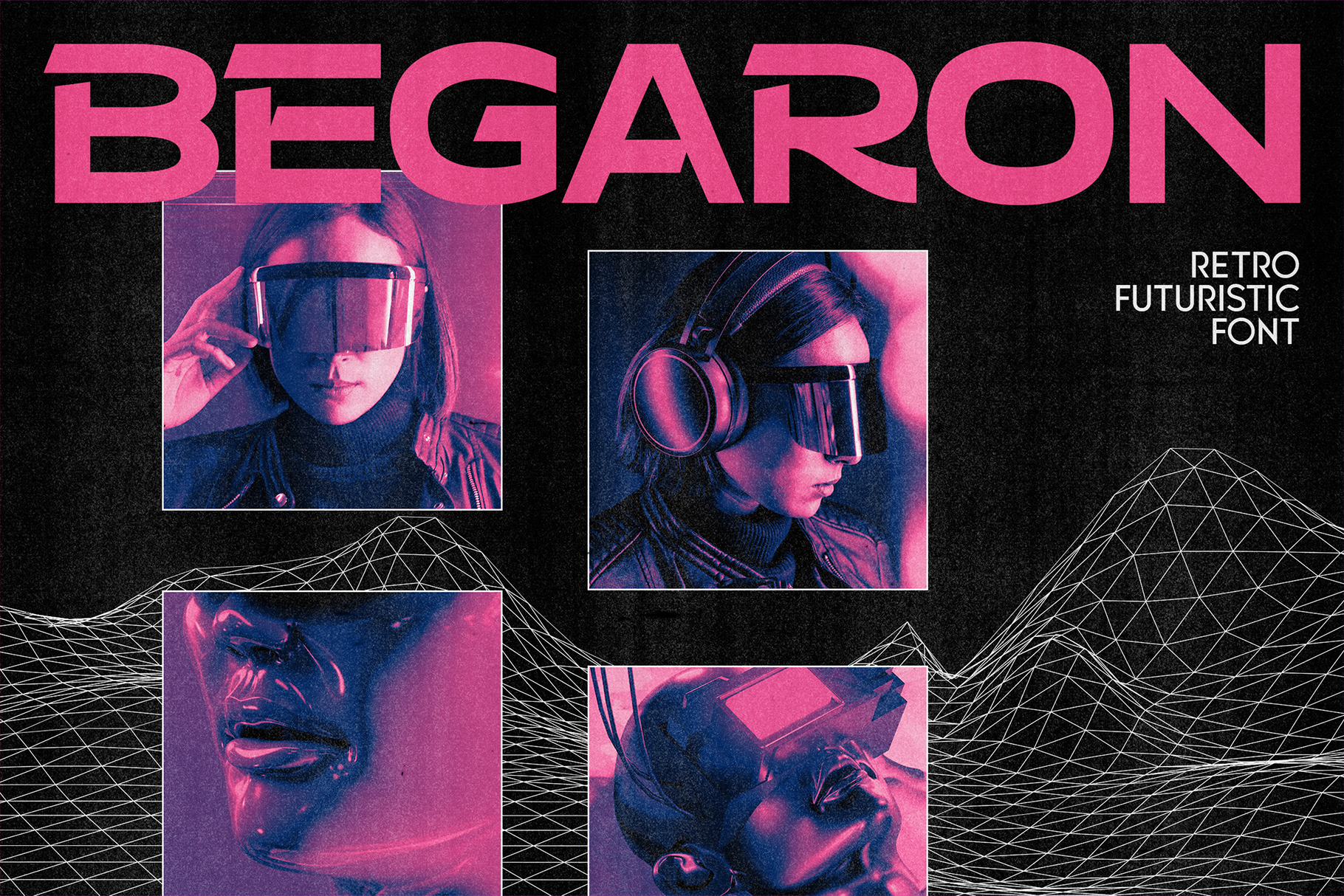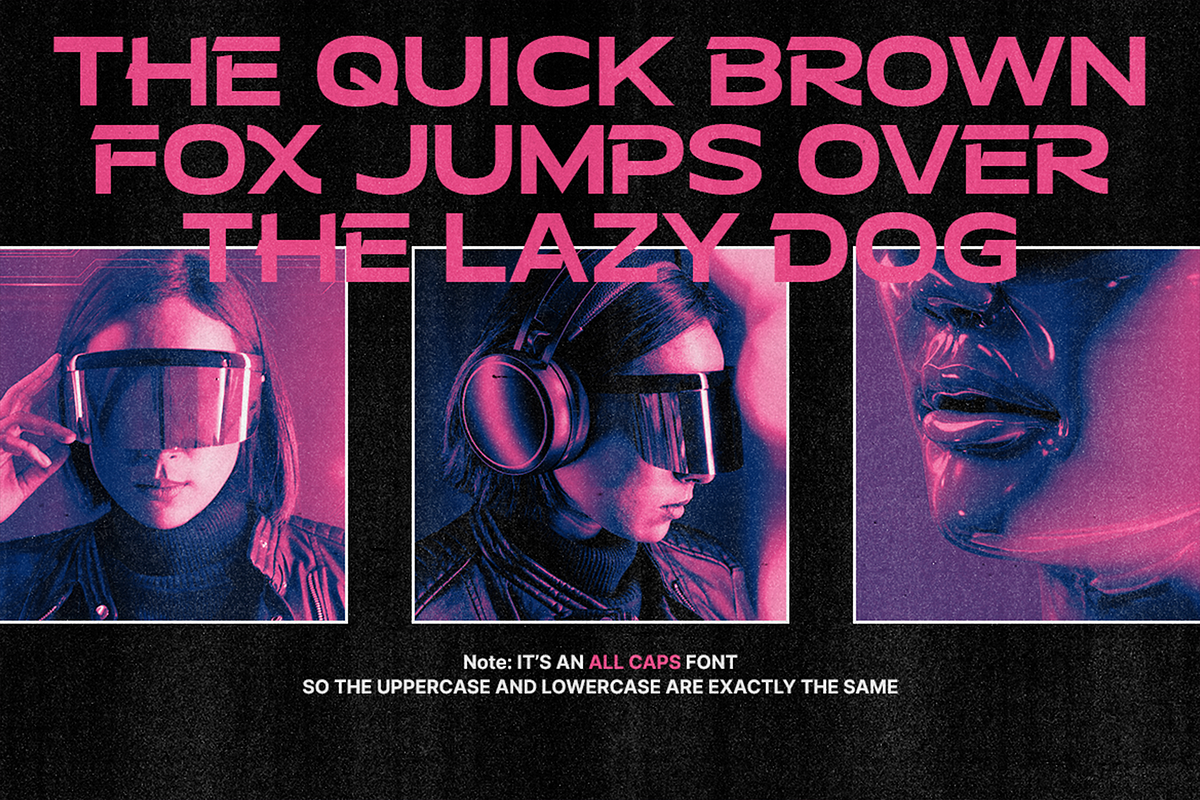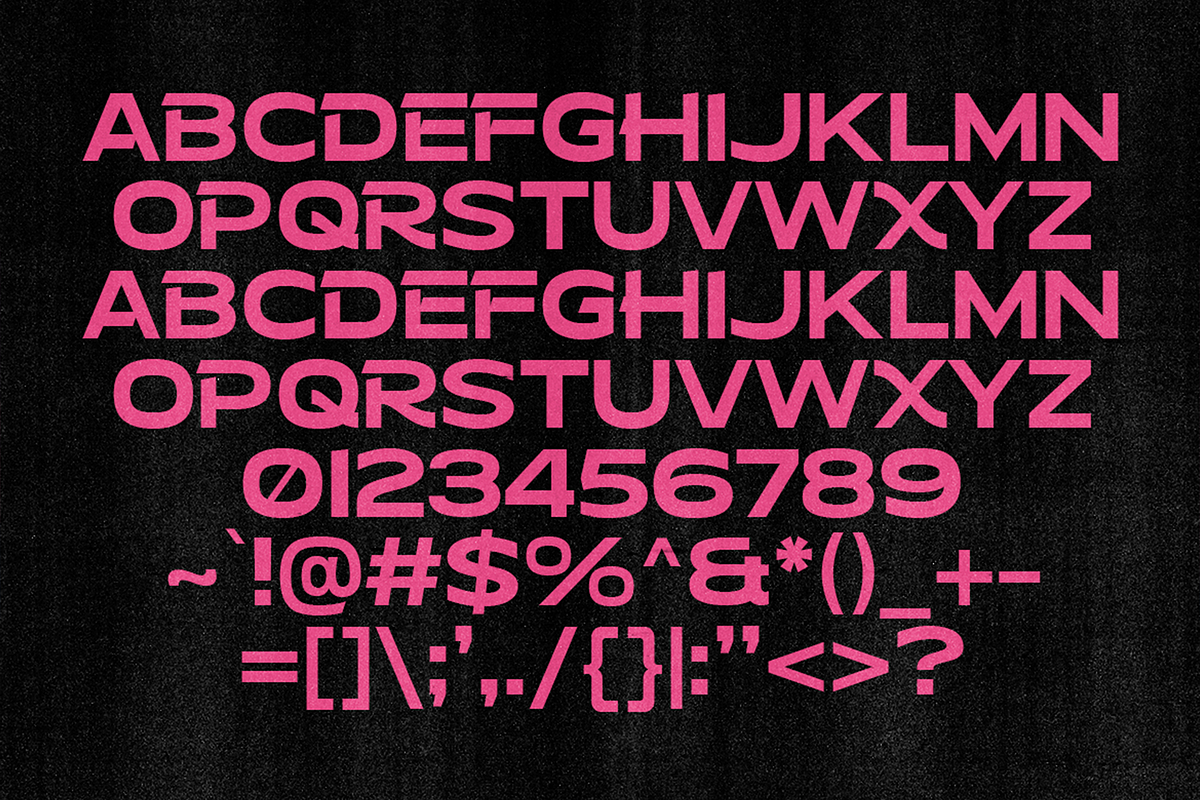
Begaron – Retro Futurism Fonts
Looking for a font that will transport your audience to a futuristic world? Look no further than Begaron! Begaron is the perfect font for any project that needs a touch of the future.
Begaron is inspired by the design aesthetic of the 1950s and 1960s, when people were optimistic about the future and imagined a world of flying cars, robots, and space travel. This font captures that spirit of optimism and excitement, and it’s sure to make your project stand out.
Perfectly fit for futuristic design concept, game, esport logo, streamer overlay, poster design, futuristic logo, and many more.